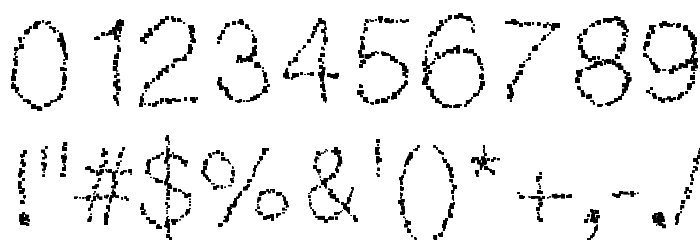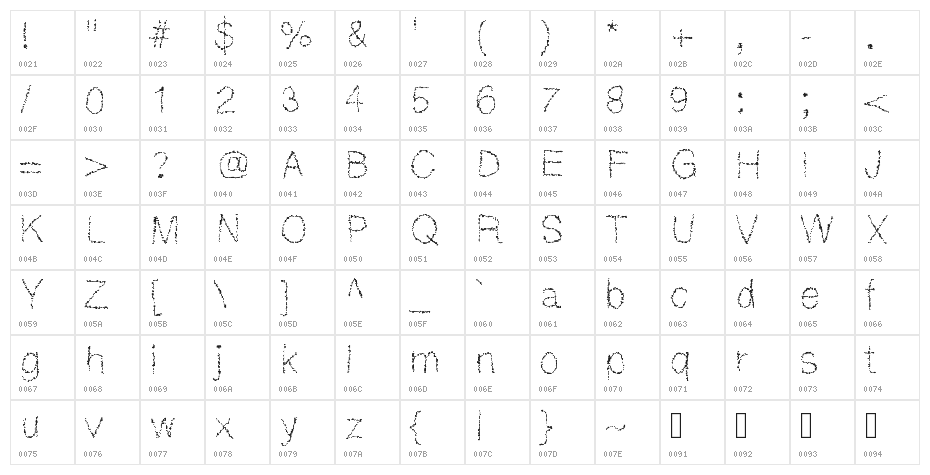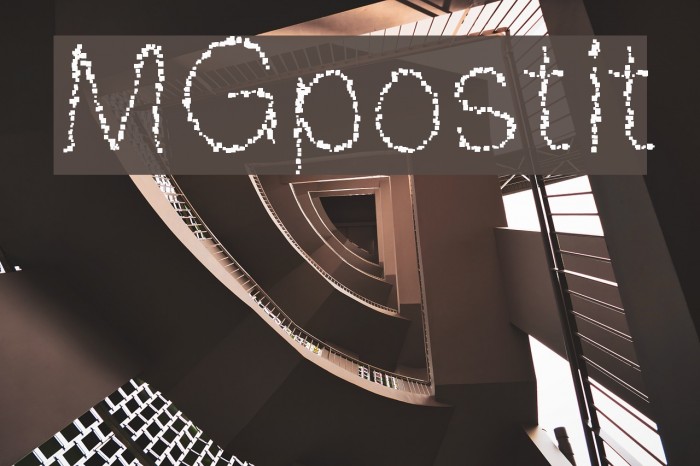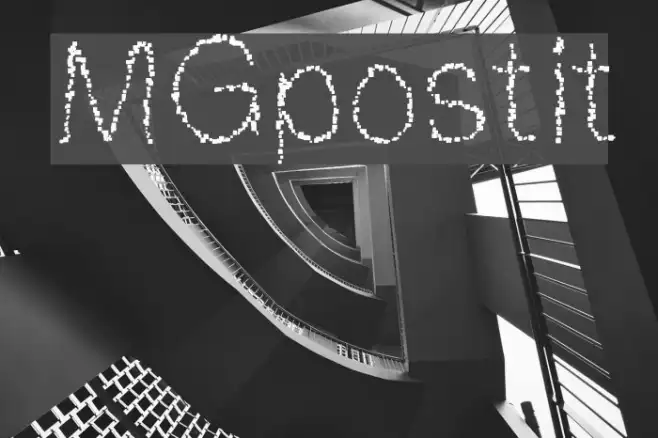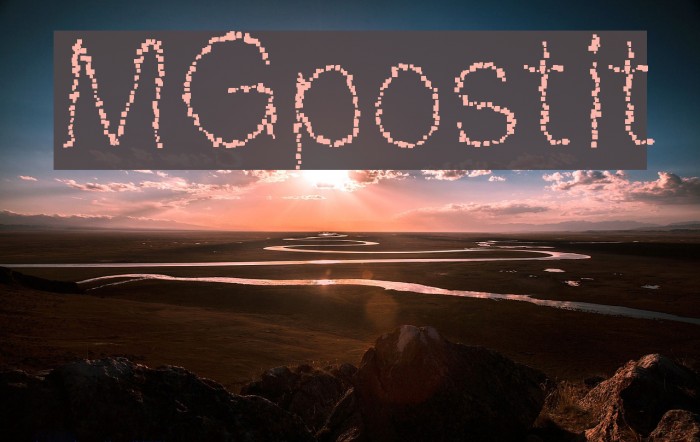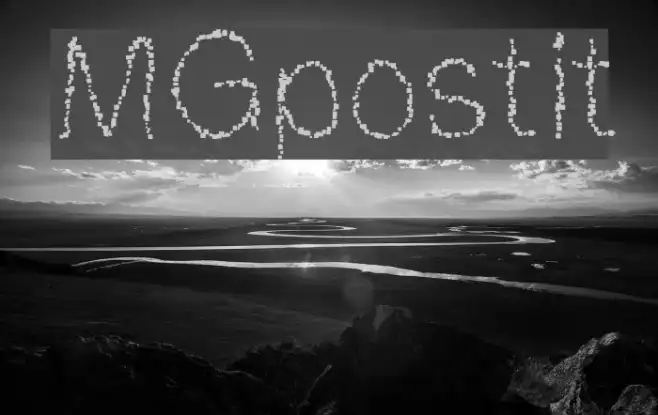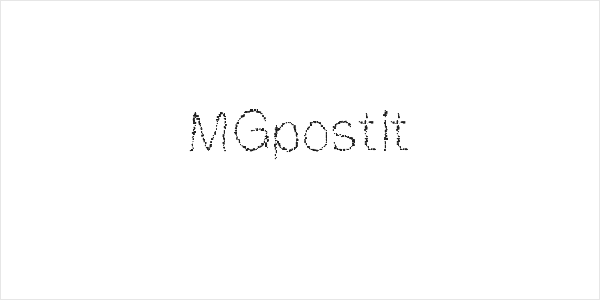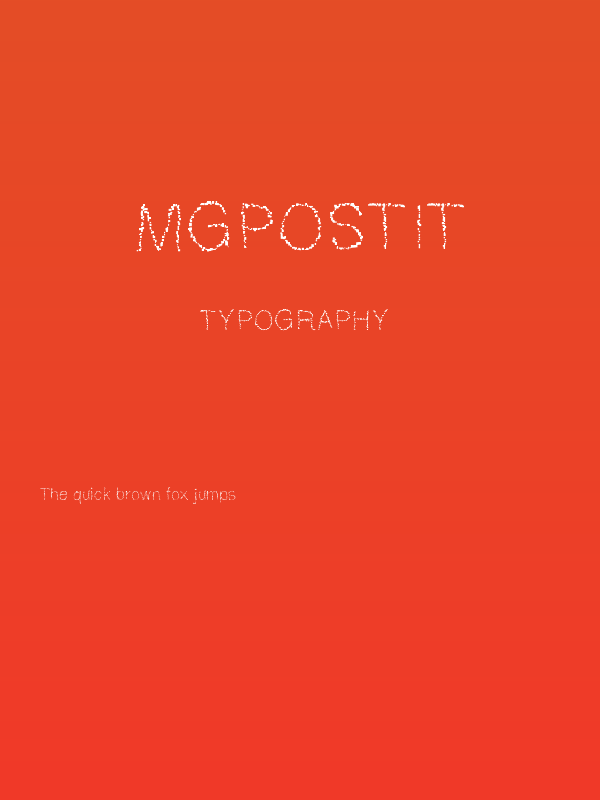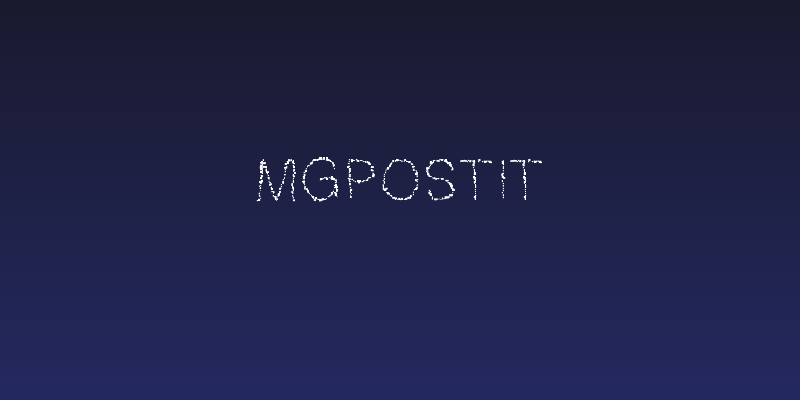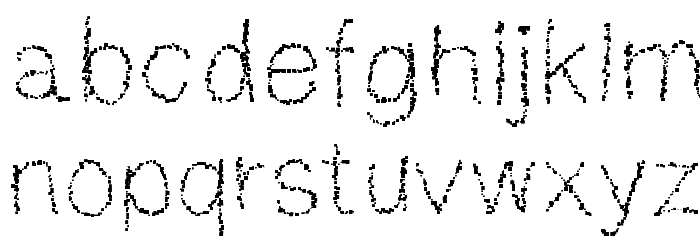
MGpostit Font
MGpostit Description
This font features a unique, textured appearance that resembles a stippled or dotted pattern, giving it a handcrafted and artistic feel. The characters are evenly spaced and maintain a consistent height, contributing to a balanced and harmonious look. The uppercase and lowercase letters are distinct yet complementary, with rounded edges that soften the overall appearance. Numbers and special characters follow the same design principles, ensuring uniformity across all elements. This font's playful and creative style makes it suitable for projects that require a touch of whimsy and originality.
| Overall Style | Artistic, Playful |
| Use Case | Headlines, Artistic projects, Branding |
| Proposed Projects | Ideal for creative projects such as greeting cards, posters, children's books, and artistic branding. |